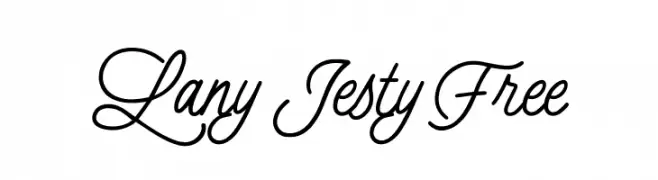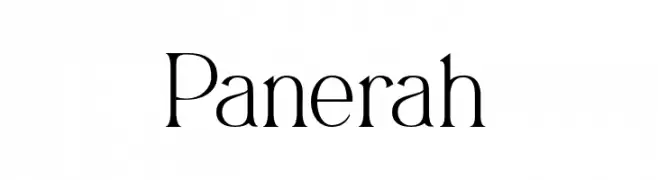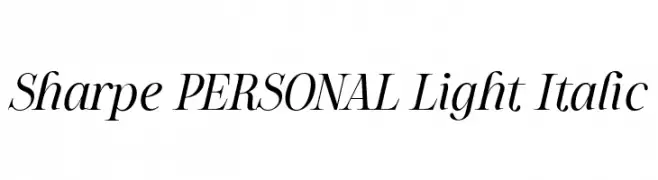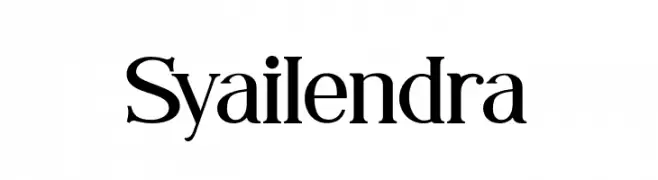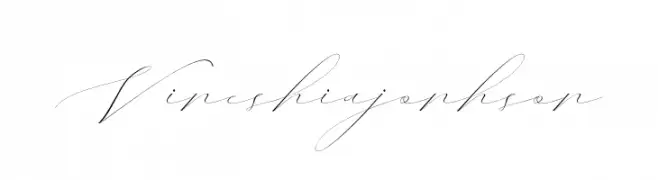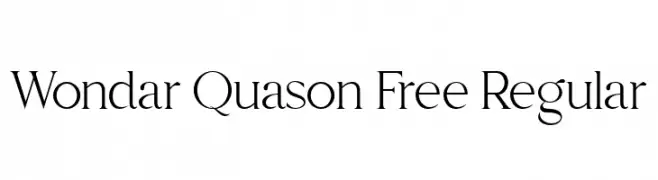
A light, elegant serif font with a refined italic style and moderate contrast.
A high-contrast serif font with sharp serifs and a refined, elegant style.
A refined and elegant script font with flowing, cursive letters.
An elegant, flowing script font with a refined and sophisticated look.
An elegant script font with flowing, cursive letterforms and a classic, refined style.
An elegant serif font with refined, elongated strokes and high contrast.
An elegant script font with flowing, interconnected letters and a refined appearance.
A classic serif font with elegant, elongated strokes and refined serifs.
A classic serif font with elegant strokes and refined serifs.
An elegant and refined font with high contrast and elongated strokes.